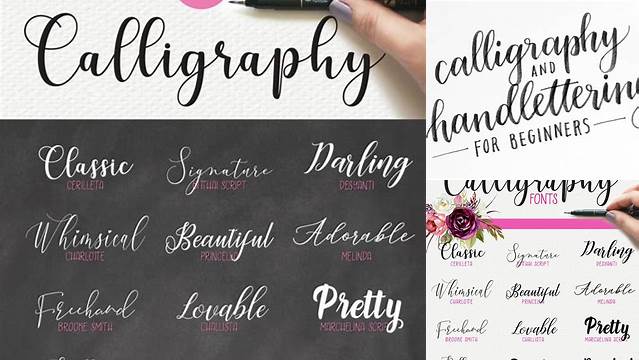
Free Calligraphy Fonts: Copy & Paste Designs Easily
Calligraphy fonts online free copy and paste** is a fantastic way to elevate your design projects with elegance and flair. Whether you're crafting invitations, designing social media graphics, or adding a personal touch to your digital artwork, the right calligraphy font can make all the difference. This article dives into the world of calligraphy fonts, offering a comprehensive guide to finding, using, and maximizing these beautiful typefaces. We'll explore where to find free calligraphy fonts that you can easily copy and paste, ensuring your designs stand out. So, let's dive in, guys!
Unleashing the Power of Calligraphy Fonts
Calligraphy fonts are more than just letters; they're an art form. They embody the grace and fluidity of traditional hand-lettering, bringing a human touch to digital designs. Unlike standard fonts, calligraphy fonts often feature unique strokes, varying line weights, and connected letters, mimicking the natural flow of handwriting. This can instantly add a sense of sophistication, personalization, and visual interest to any project. The beauty of calligraphy fonts lies in their versatility. They can be used in a wide range of applications, from creating stunning headlines and logos to designing elegant wedding invitations and personalized stationery. The availability of calligraphy fonts online free copy and paste has made it easier than ever for designers of all skill levels to access and incorporate these fonts into their work. By simply copying the desired text and pasting it into your chosen application, you can instantly transform ordinary text into beautiful calligraphy. The impact of a well-chosen calligraphy font is undeniable. It can evoke a sense of nostalgia, romance, or professionalism, depending on the style and application. For instance, a flowing script font can add a touch of elegance to a wedding invitation, while a bold and modern calligraphy font can create a striking logo for a modern brand. The ability to find and use calligraphy fonts online free copy and paste has democratized design, allowing anyone to experiment with these artistic fonts without needing advanced calligraphy skills. This opens up a world of creative possibilities, enabling you to add a personalized touch to your projects and create designs that truly stand out. So, whether you're a seasoned designer or just starting out, embracing the beauty of calligraphy fonts can significantly enhance your creative endeavors. Don't be afraid to experiment, mix and match different styles, and find the perfect font that captures your vision and brings your designs to life. The power of calligraphy fonts is truly in your hands, ready to be unleashed with a simple copy and paste.
Finding Free Calligraphy Fonts Online
One of the best things about calligraphy fonts online free copy and paste is the abundance of free resources available. Numerous websites offer a vast selection of calligraphy fonts that you can download and use in your projects without any cost. These platforms are a treasure trove for designers, providing access to various styles, from classic scripts to modern and edgy designs. When searching for free calligraphy fonts, it's essential to know where to look. Some popular websites include Google Fonts, DaFont, Font Squirrel, and 1001 Free Fonts, among others. These sites host extensive libraries of fonts, often with advanced search filters that allow you to narrow down your choices based on style, character set, and other criteria. Make sure to check the licensing of each font before using it, even though it says calligraphy fonts online free copy and paste, and that the font is licensed for commercial use if you intend to use it for commercial projects. While most free calligraphy fonts are available for personal use, some require a license for commercial applications. Always read the license agreement to ensure you're using the font correctly. Another tip for finding the best calligraphy fonts is to look beyond the most popular choices. While well-known fonts are great, exploring lesser-known or unique fonts can help you create designs that are truly distinctive. Some websites also offer font bundles or collections, providing a range of options for a single download. This can be a great way to discover new styles and experiment with different calligraphy fonts. When selecting calligraphy fonts online free copy and paste, consider the overall design and the message you want to convey. The font should complement the other elements of your design and enhance the visual impact. For example, a delicate script font might be perfect for wedding invitations, while a bold and modern calligraphy font might be more suitable for a tech startup's logo. Finally, always test the fonts before using them in your final designs. Try out different text sizes, spacing, and colors to see how the font looks and feels in various contexts. This will help you ensure that the calligraphy font fits your needs and enhances your overall design.
How to Copy and Paste Calligraphy Fonts
Best Practices for Using Calligraphy Fonts
Using calligraphy fonts online free copy and paste effectively involves more than just selecting a beautiful font. It requires understanding the best practices to ensure your designs look professional and visually appealing. One of the most crucial aspects is choosing the right font for your project. Consider the tone and style of your design. A delicate script font might be perfect for romantic invitations, while a bolder font might be more appropriate for a modern logo. Make sure your chosen font complements the overall design elements, such as the color palette, images, and other fonts you use. Another key element is legibility. While calligraphy fonts are often decorative, it's essential that the text remains easy to read. Avoid using overly ornate fonts for large blocks of text, and ensure the text size is appropriate for the context. Experiment with different sizes and spacing to find the perfect balance between aesthetics and readability. Proper spacing and kerning are also essential for a professional look. Kerning refers to adjusting the space between individual letter pairs, while tracking adjusts the overall spacing of a word or phrase. Adjusting these elements can significantly improve the visual appearance and readability of your calligraphy font. Don't be afraid to experiment with these settings to achieve the perfect balance. In addition, consider the context of your design. Will the calligraphy font be used in print or digital format? Will it be viewed on a small screen or a large display? These factors can influence your font choice, size, and spacing. For example, a font that looks great in print might appear too cluttered on a small screen. Furthermore, remember the power of contrast. Use the calligraphy font against a contrasting background or with other design elements that create a visually appealing layout. Contrasting colors and styles can make your calligraphy stand out and grab the viewer's attention. Finally, always test your design. Preview your work in different formats and devices to ensure that the font looks its best. Get feedback from others, and make any necessary adjustments before finalizing your project. By following these best practices, you can use calligraphy fonts online free copy and paste to create stunning and effective designs that captivate your audience.
Calligraphy Font Styles and Trends
The world of calligraphy fonts is constantly evolving, with new styles and trends emerging regularly. Understanding these trends can help you stay current and create designs that resonate with your audience. One of the enduring trends is the classic script style. These fonts mimic traditional handwriting, adding a touch of elegance and sophistication to any design. They are perfect for wedding invitations, greeting cards, and other projects where a classic and romantic feel is desired. Another popular trend is the modern calligraphy style. These fonts often feature bold strokes, clean lines, and a contemporary feel. They are perfect for logos, websites, and other designs that require a fresh and modern aesthetic. The use of hand-lettering-inspired fonts is also gaining popularity. These fonts mimic the look of hand-drawn letters, adding a personal and unique touch to your designs. They are perfect for creating logos, social media graphics, and other projects where a handcrafted feel is desired. Furthermore, the trend of pairing calligraphy fonts with other font styles is becoming increasingly common. Combining a calligraphy font with a sans-serif or serif font can create a balanced and visually appealing design. This can add contrast and visual interest to your projects. Moreover, the use of textured and distressed calligraphy fonts is also trending. These fonts add a vintage or rustic look to your designs, perfect for creating a sense of nostalgia or a handcrafted feel. Finally, the trend of using variable fonts is gaining momentum. Variable fonts allow you to adjust the weight, width, and other characteristics of a font, giving you greater flexibility in your designs. By staying aware of these calligraphy fonts online free copy and paste styles and trends, you can enhance your designs and create content that is both visually appealing and current. Feel free to explore different styles, experiment with various combinations, and embrace the latest trends to create designs that truly stand out.
Tools and Resources for Calligraphy Design
To make the most of calligraphy fonts online free copy and paste, it's helpful to have access to the right tools and resources. These tools can enhance your design workflow and help you create stunning visuals. One of the most essential tools is a design software. Popular options include Adobe Photoshop, Illustrator, and Canva. Adobe Photoshop and Illustrator are powerful tools for professional designers, offering advanced features for creating and manipulating images. Canva is a user-friendly alternative that is great for beginners, offering a wide range of templates and design elements. Another helpful tool is a font management software. This software helps you organize and manage your fonts, making it easy to find and use the calligraphy fonts you need. Some popular options include FontBase, NexusFont, and RightFont. Besides design software and font management software, consider utilizing online design resources. Websites such as Creative Market and Envato Elements offer a vast library of design assets, including pre-designed templates, graphics, and other resources. These resources can save you time and effort, especially when you're just starting out or working on a tight deadline. Exploring various online tutorials and courses can also be incredibly beneficial. Platforms like Skillshare and Udemy offer comprehensive courses on calligraphy, typography, and design. These courses can help you improve your skills, learn new techniques, and stay updated on the latest trends. Furthermore, consider utilizing websites that offer free mockups. Mockups allow you to visualize your designs in a realistic setting. This can be incredibly helpful for presenting your work to clients or getting feedback on your designs. Last but not least, stay updated with the latest design trends and best practices. Follow design blogs, read industry publications, and participate in design communities to stay inspired and improve your skills. By leveraging the right tools and resources, you can enhance your calligraphy fonts online free copy and paste workflow and create designs that truly impress.
Legal Considerations and Licensing
When using calligraphy fonts online free copy and paste, it's crucial to understand the legal considerations and licensing terms associated with these fonts. This ensures that you use the fonts responsibly and avoid any potential legal issues. First and foremost, always read the font's license agreement before using it. The license agreement specifies how you can use the font, whether it's for personal or commercial use. Pay close attention to the terms and conditions, as they may vary depending on the font and the source. Some fonts are free for personal use only, meaning you can use them for non-commercial projects, such as personal invitations or social media posts. For commercial projects, such as designing logos, websites, or products for sale, you'll likely need a commercial license. A commercial license grants you the right to use the font for commercial purposes. The cost of a commercial license can vary depending on the font and the license terms. In addition to the license type, pay attention to any restrictions. Some licenses may restrict the use of the font in specific applications, such as creating logos for certain industries or using the font in e-books. Make sure to check for these restrictions before using the font. When downloading calligraphy fonts online free copy and paste, make sure you're obtaining them from a reputable source. Avoid downloading fonts from untrusted websites, as they may contain malware or viruses. Stick to well-known websites like Google Fonts, DaFont, and Font Squirrel, or use font management software for more safety. Additionally, always credit the font designer if required by the license. Some licenses require you to credit the designer in your design or accompanying documentation. Make sure to include the proper attribution to avoid copyright infringement. Finally, be aware of copyright laws. Copyright protects the font designer's work, so it's essential to respect their rights. Using a font without a proper license or violating the license terms can lead to legal consequences. Understanding these legal considerations and licensing terms is essential to ensure responsible and ethical use of calligraphy fonts online free copy and paste. Always prioritize legal compliance to avoid any potential issues and protect your work.
Conclusion: Embrace the Beauty of Calligraphy Fonts
In conclusion, calligraphy fonts online free copy and paste provides an incredible opportunity to infuse your designs with elegance and personality. The ability to access a wide range of calligraphy fonts for free has democratized the design process, making these beautiful typefaces accessible to designers of all levels. Throughout this article, we've explored the power of calligraphy fonts, discussed how to find and use them, and highlighted best practices for maximizing their impact. From choosing the right font for your project to understanding licensing and legal considerations, we've covered all the essentials. Now, it's time to embrace the beauty of calligraphy fonts and unleash your creativity. Experiment with different styles, fonts, and design elements to discover the perfect look for your projects. Don't be afraid to mix and match fonts, explore different colors, and create stunning visuals that captivate your audience. Remember to stay updated on the latest trends, explore new resources, and constantly refine your skills. The world of calligraphy fonts is vast and ever-evolving, offering endless possibilities for creativity and expression. By embracing the beauty of calligraphy fonts and mastering the art of copying and pasting, you can elevate your designs and make them truly unforgettable. So, go ahead, guys – start exploring the world of calligraphy fonts online free copy and paste, and let your creativity flow! Let your designs speak volumes and leave a lasting impression on everyone who sees them. Happy designing!